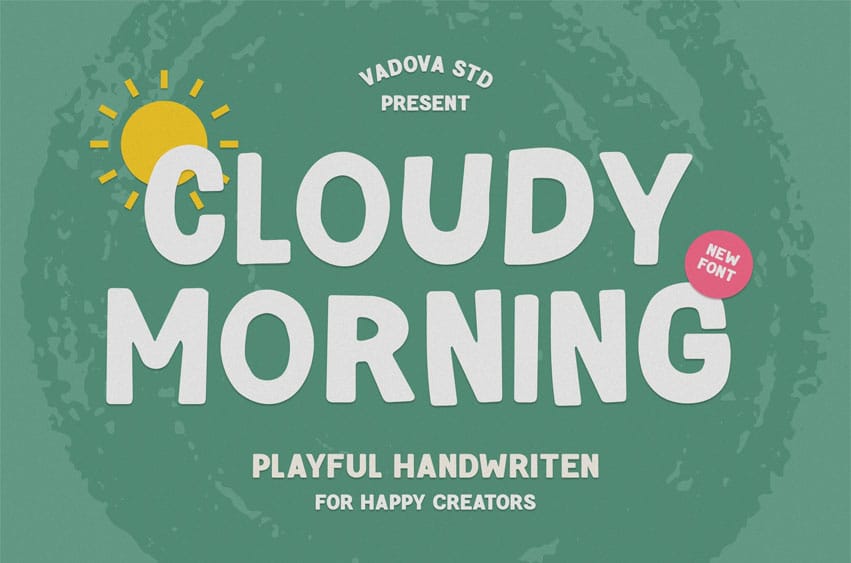
Cloudy Morning Font Playful Handwritten is a playful handwritten font created to bring joy, warmth, and a personal touch to your designs. With its rounded strokes, bouncy baseline, and casual lettering style, it’s perfect for fun packaging, food brands, kids merchandise, inspirational quotes, social media posts, and feel-good advertising. The fontis ideal for designers who want to express happiness and positivity with authenticity.